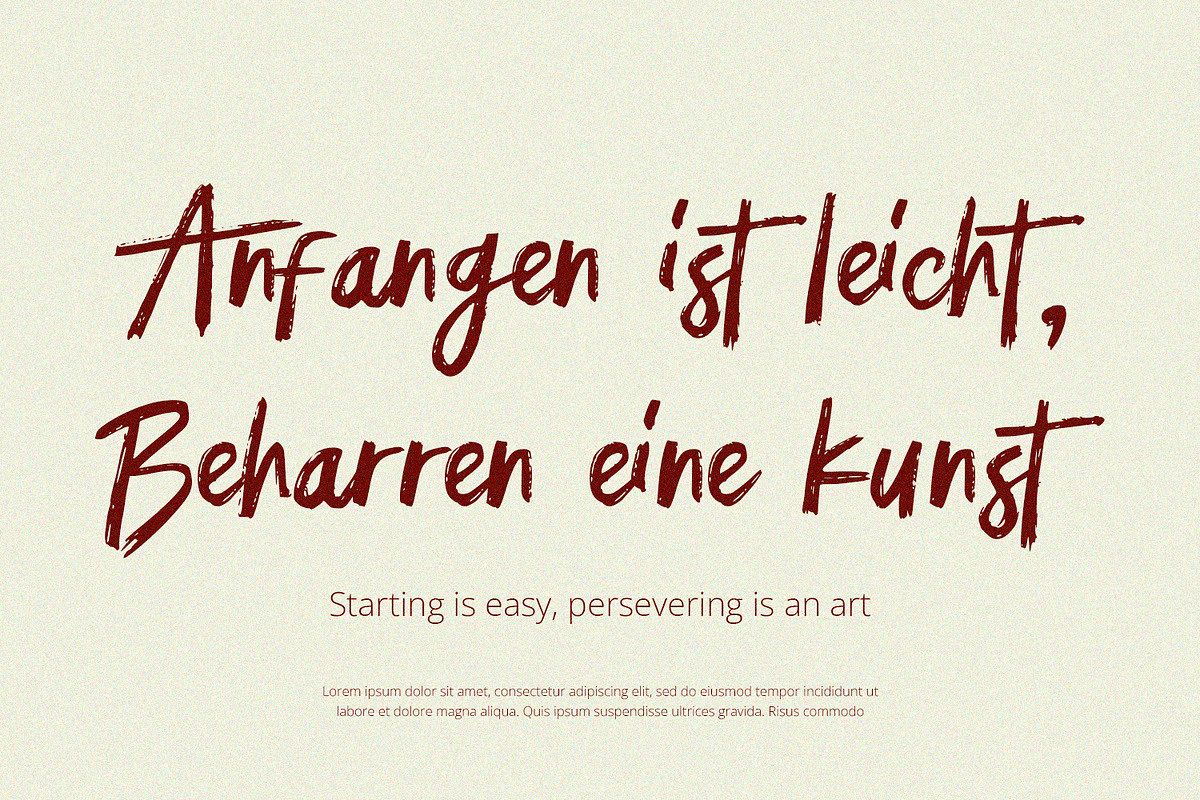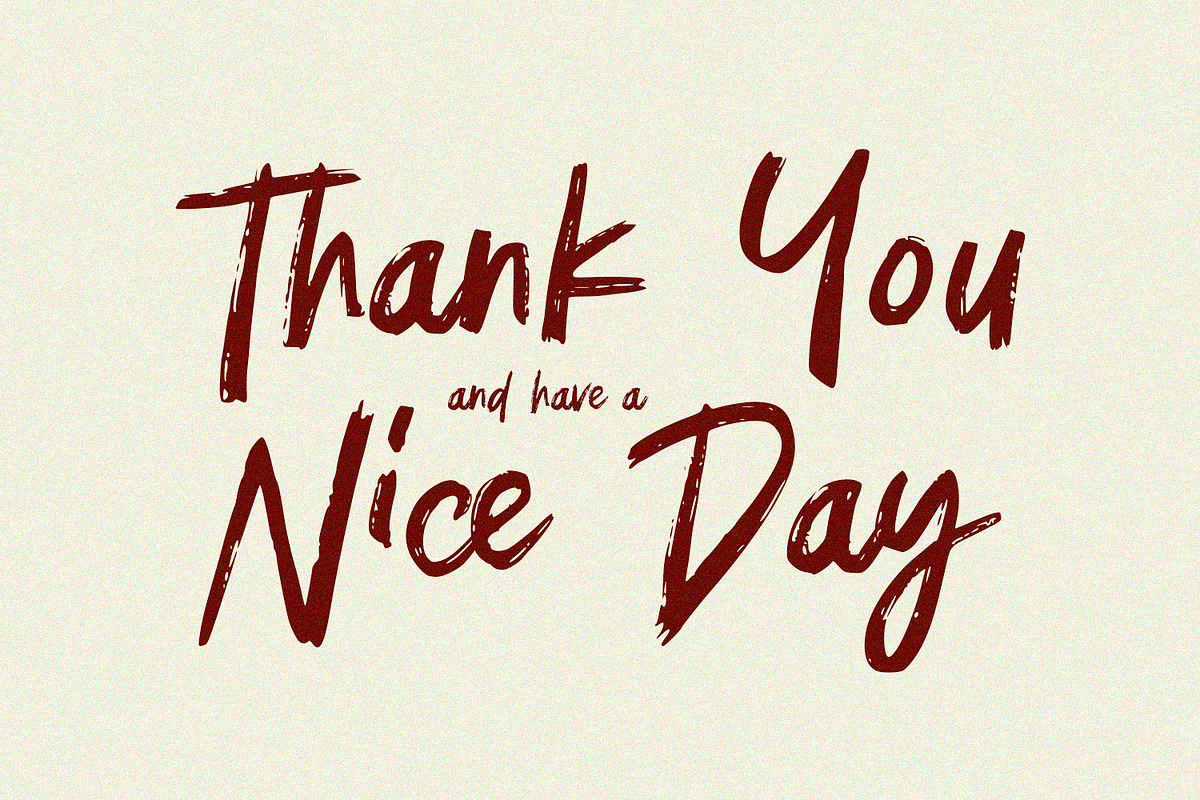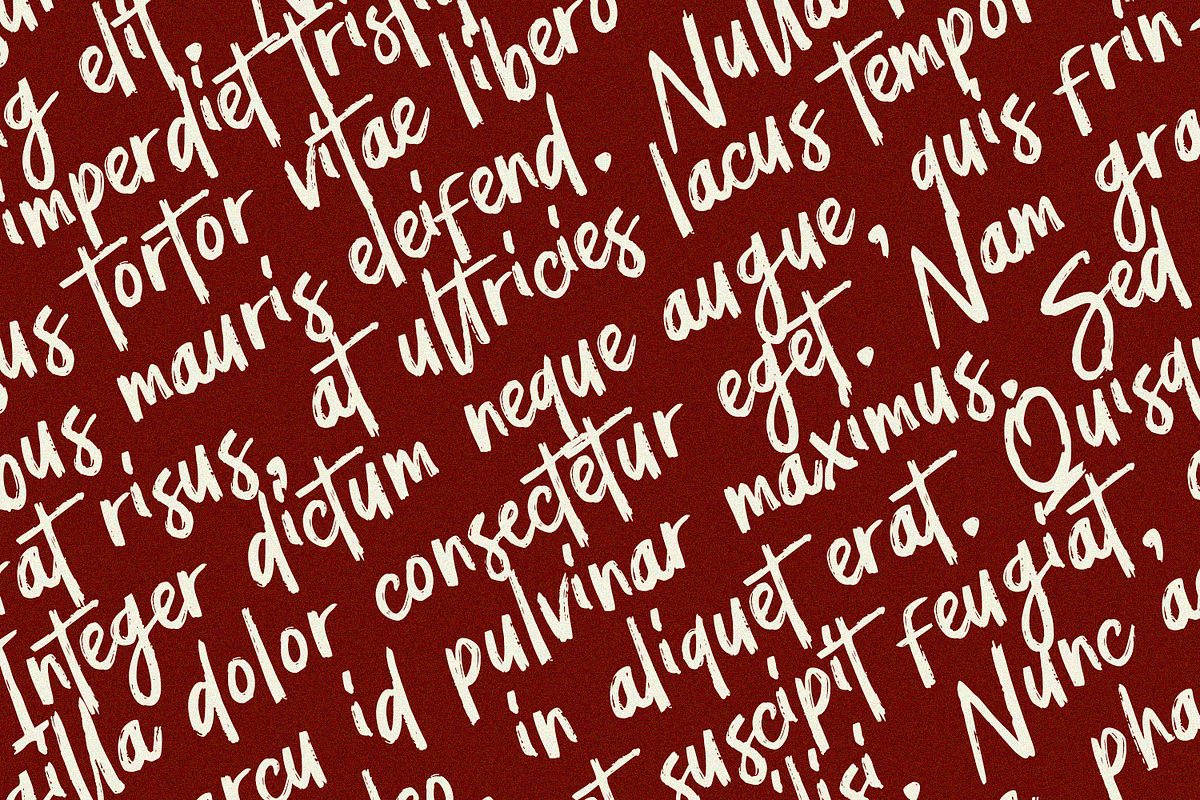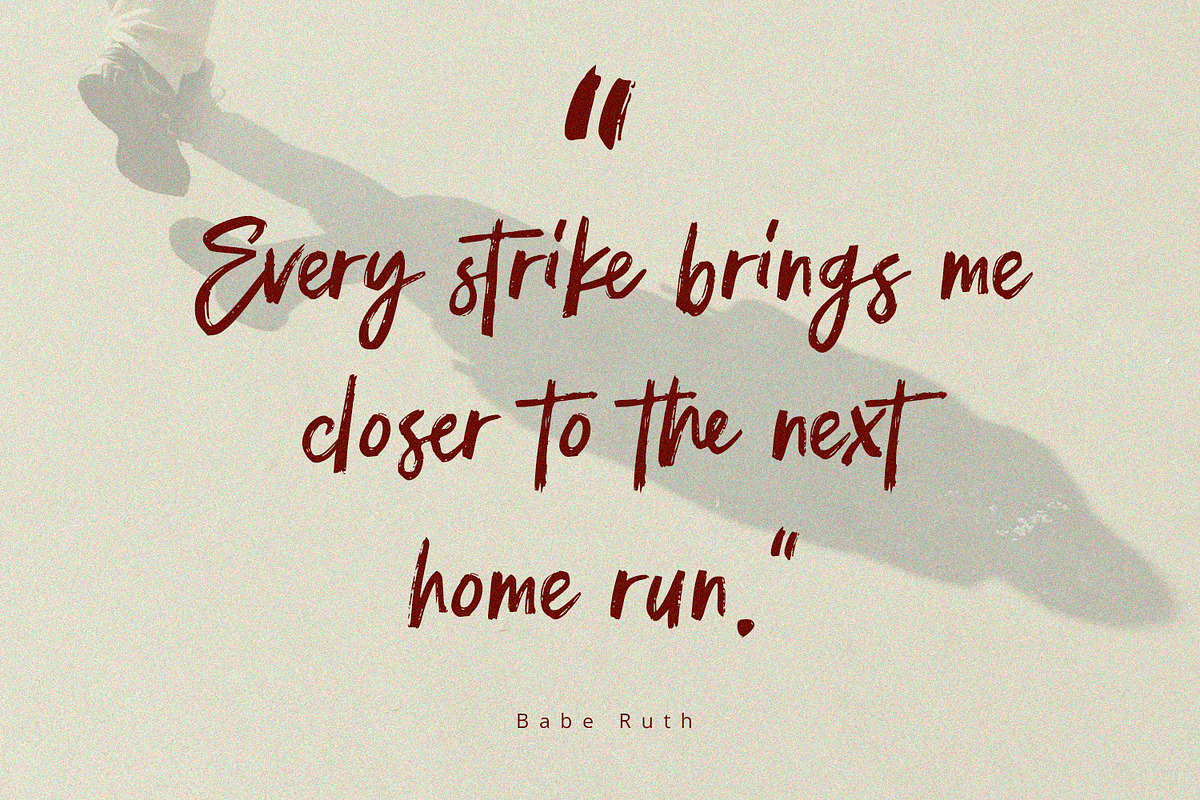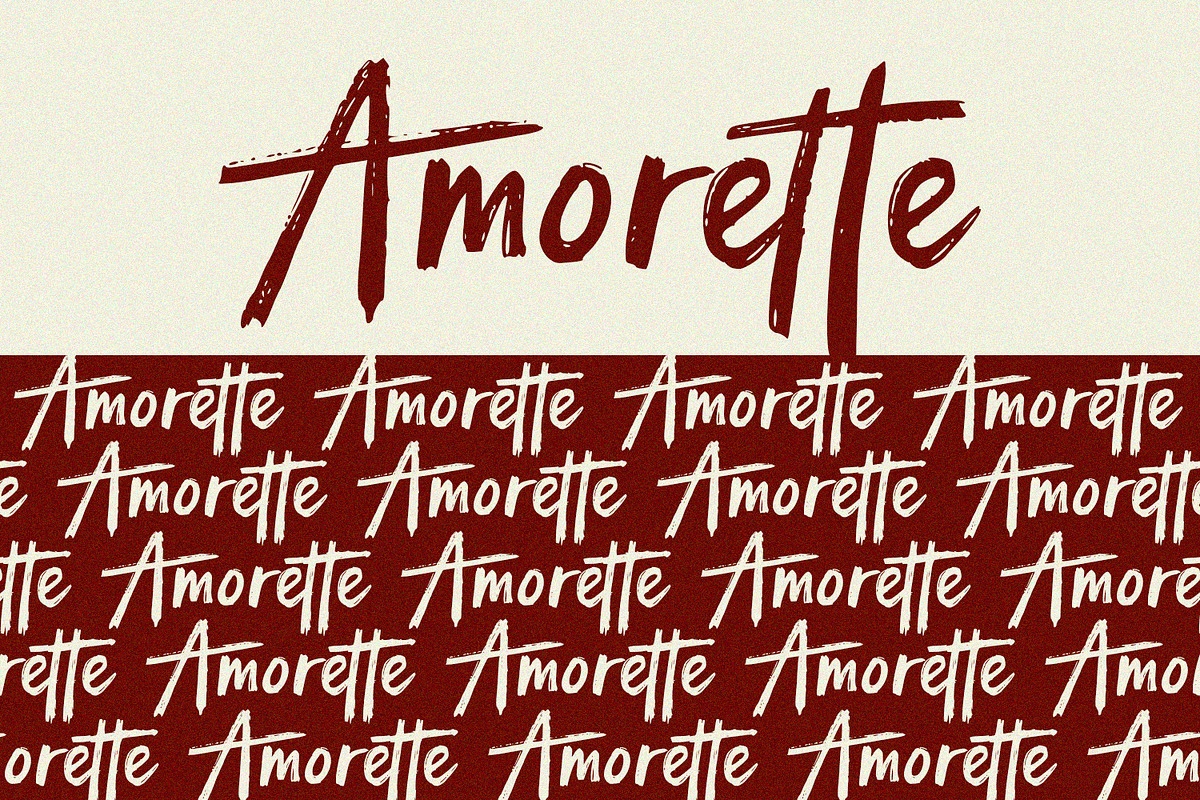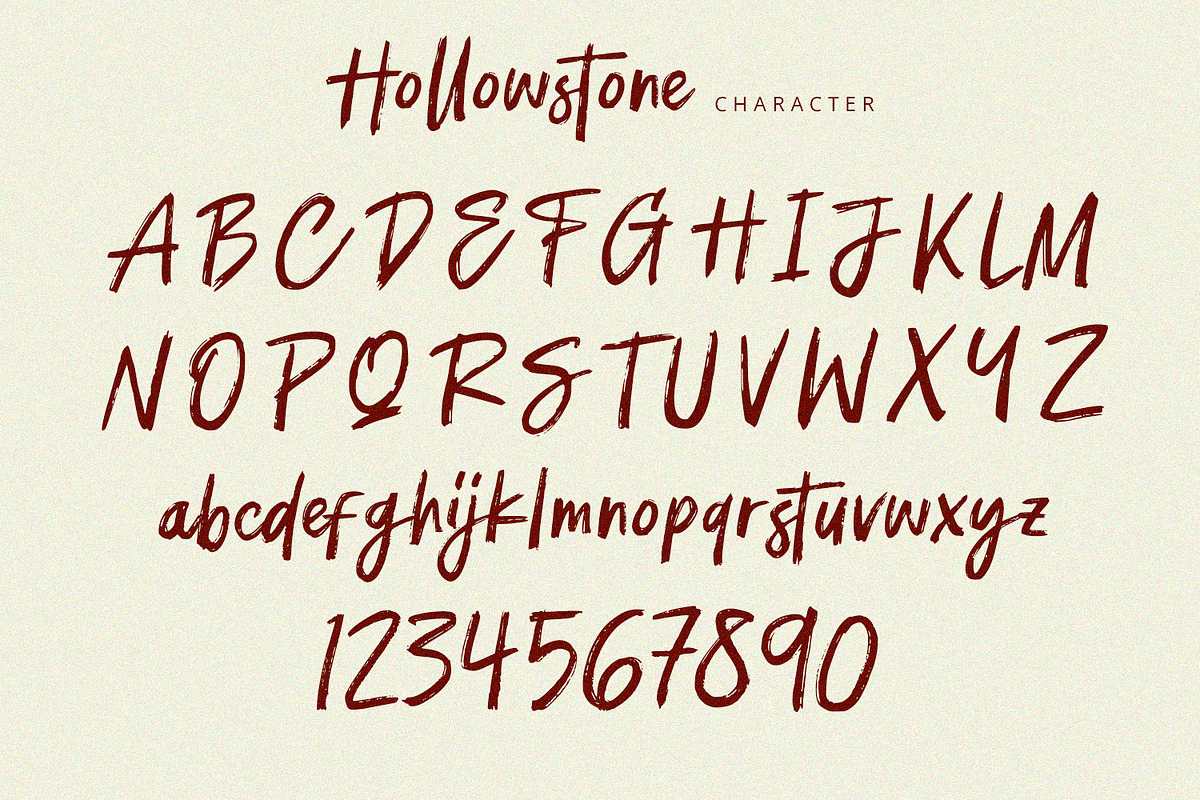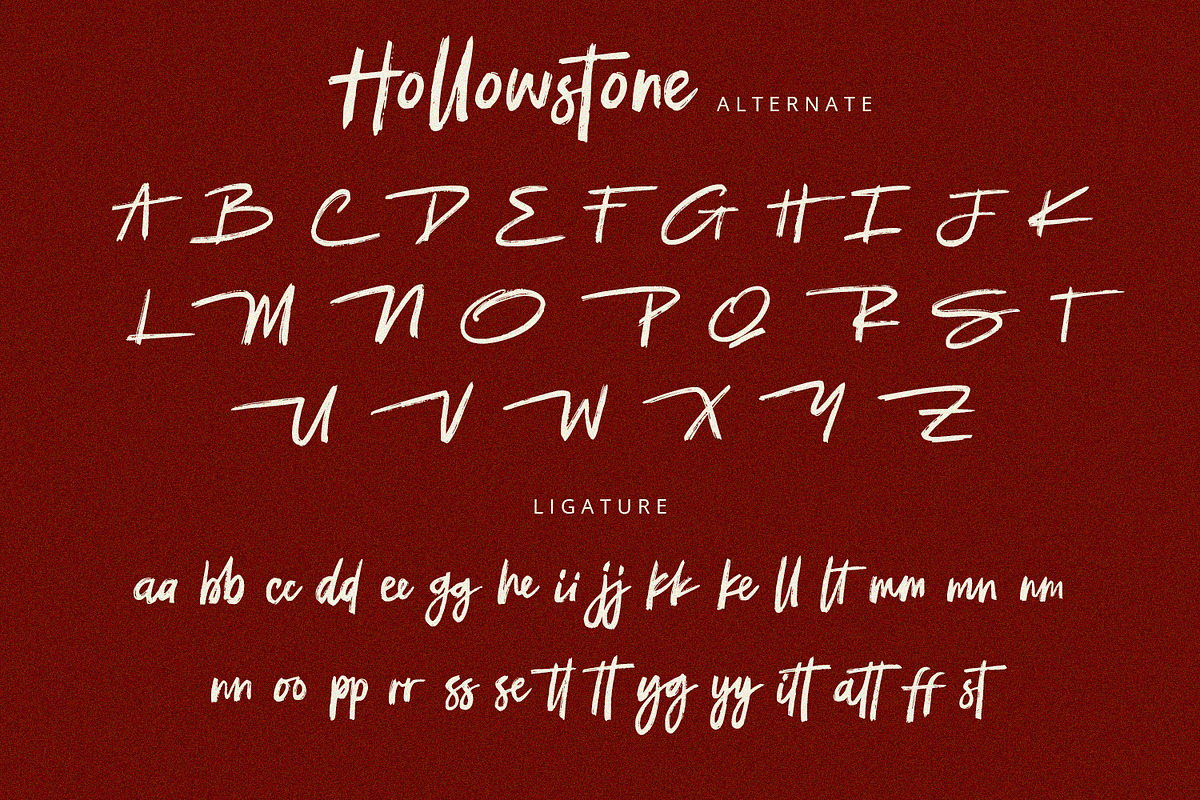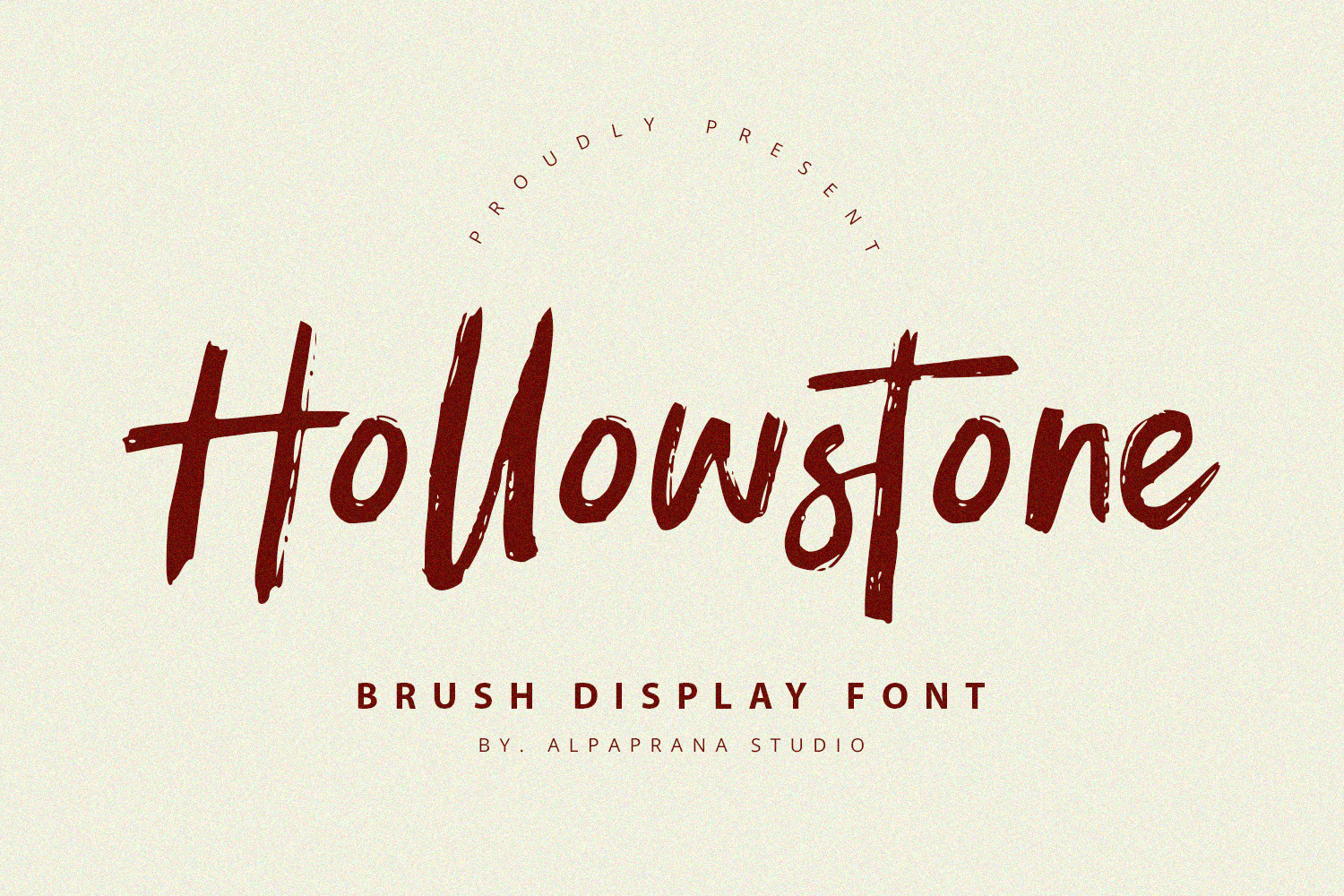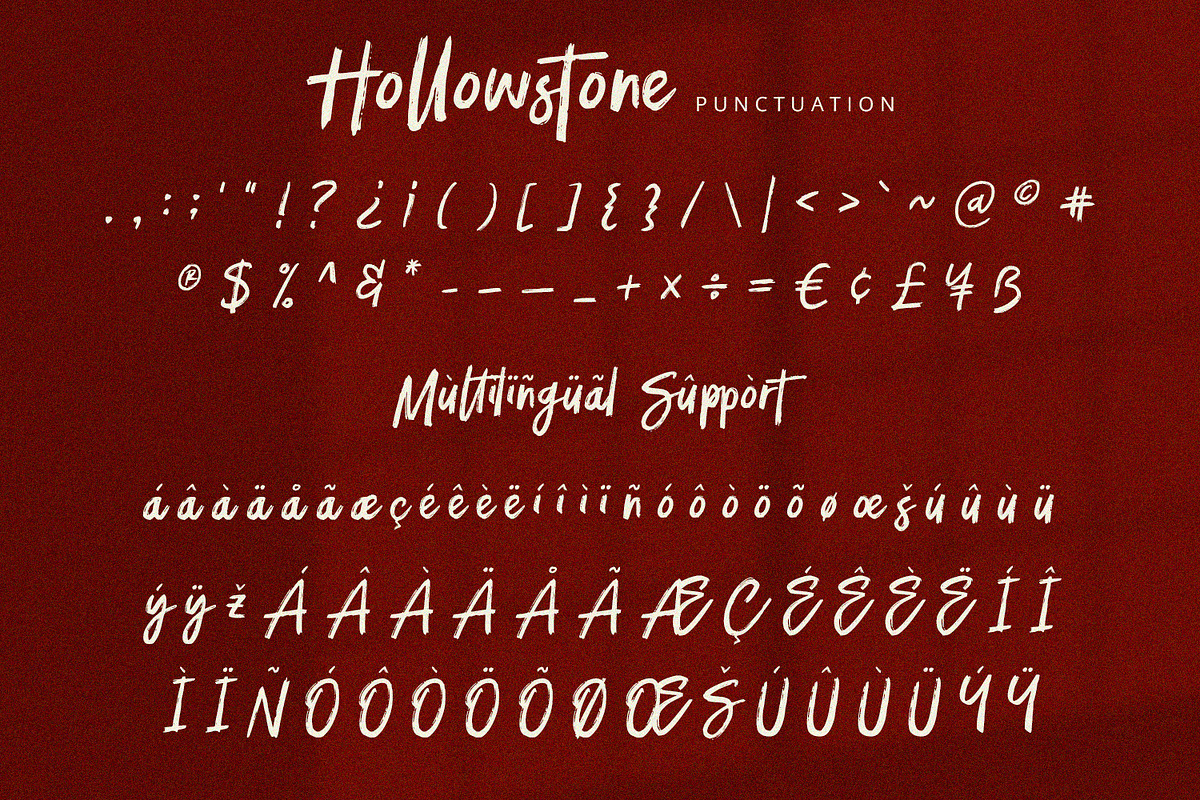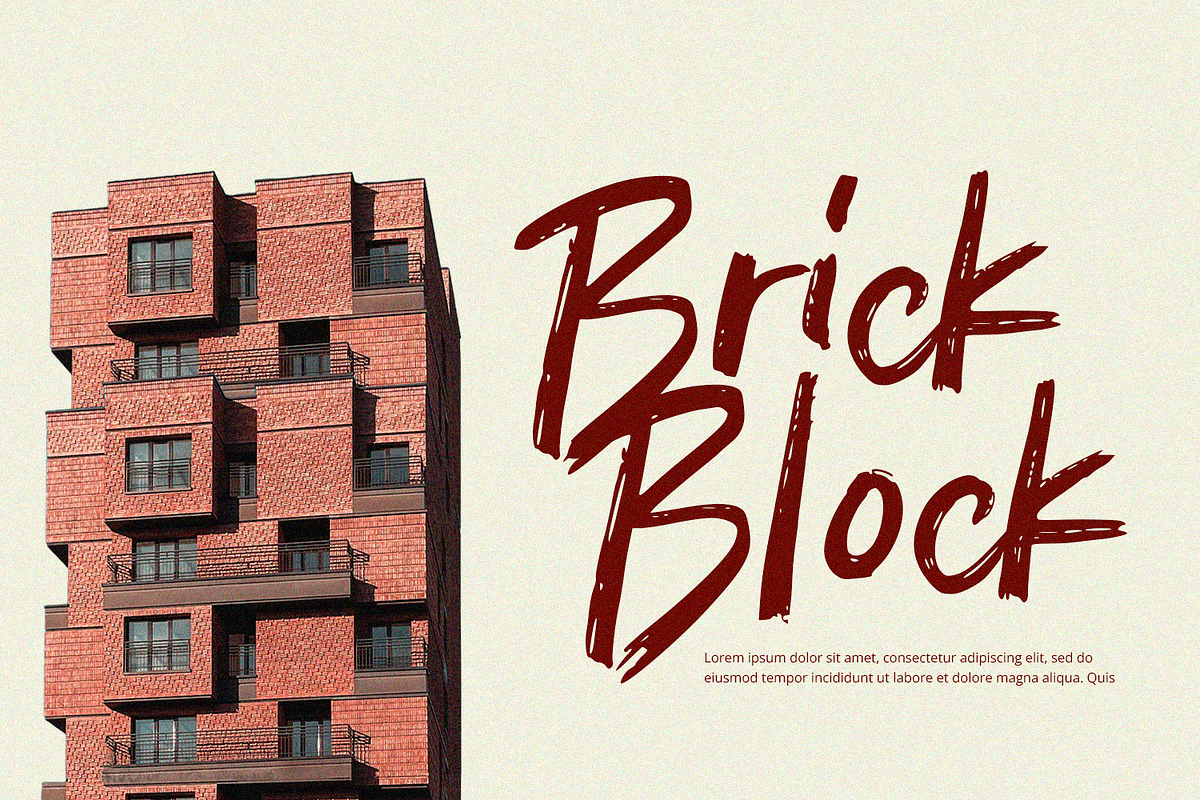
Hollowstone - Brush Font
Hollowstone is a brush script font with unique and natural feels. It will be perfectly used for Branding, Logo Design, Lettering, Logotype, Clothing, Poster, magazine, packaging, posters, shopping bags, t-shirts, book covers, photography, special events and other design project.